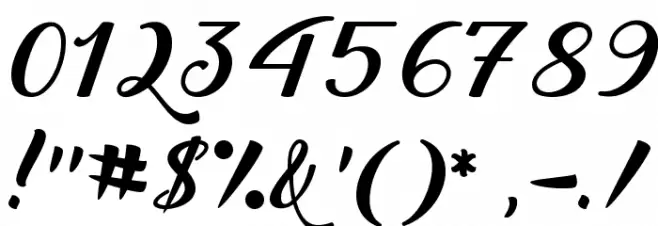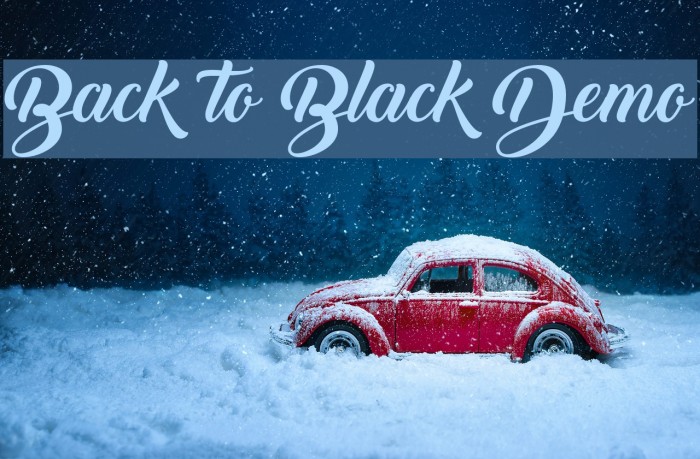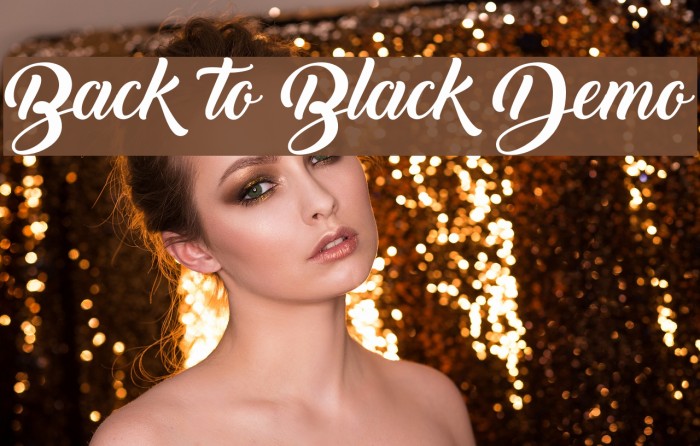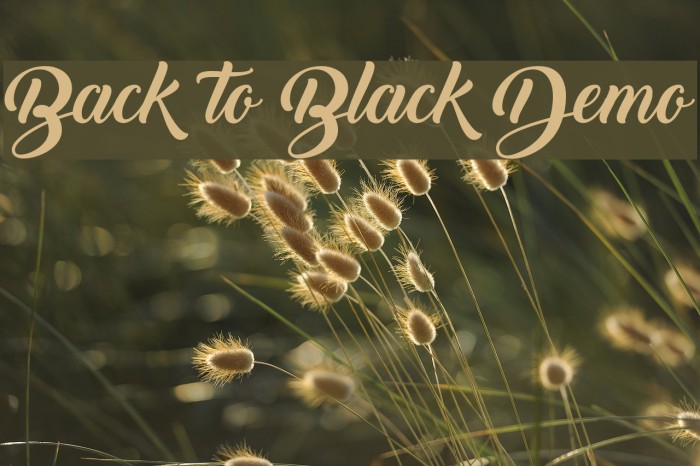
Back to Black Demo Font
Back to Black Demo Description
This font exudes a bold and expressive character with its flowing script style. The letters are elegantly connected, creating a sense of movement and fluidity. The uppercase letters are particularly ornate, with sweeping curves and flourishes that add a touch of sophistication. The lowercase letters maintain a consistent style, with smooth transitions and rounded forms. The numerals are equally stylish, featuring a slight slant that complements the overall script aesthetic. Special characters are designed with the same attention to detail, ensuring a cohesive look across all glyphs. This font is perfect for projects that require a touch of elegance and flair.
A bold, expressive script font with elegant curves and fluid connections from Script fonts.
- Proposed Projects: Ideal for wedding invitations, branding, logos, and elegant packaging designs.
- Use Case: Logos, Invitations, Branding